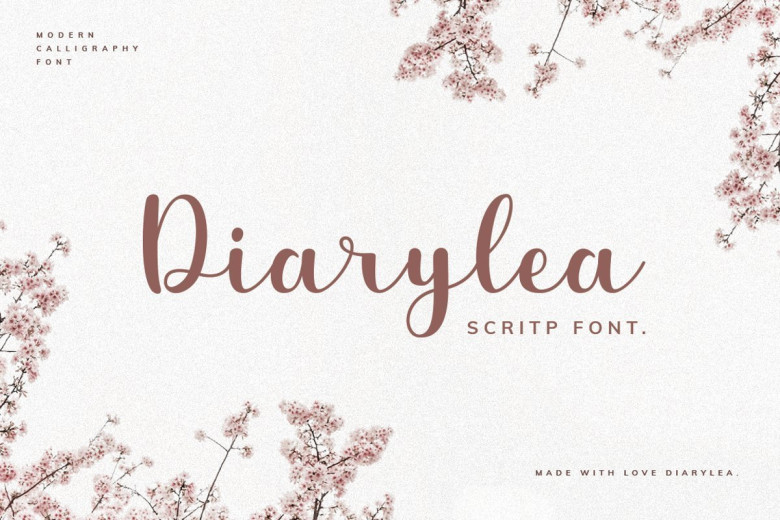
Diarylea Script Font Free
Introducing latest product Diarylea Script Font!. It is free-flowing, feminine, fashionable and friendly. Diarylea is perfect for fashion, e-commerce brands, trend blogs, or any business that wants to appear casual and chic.